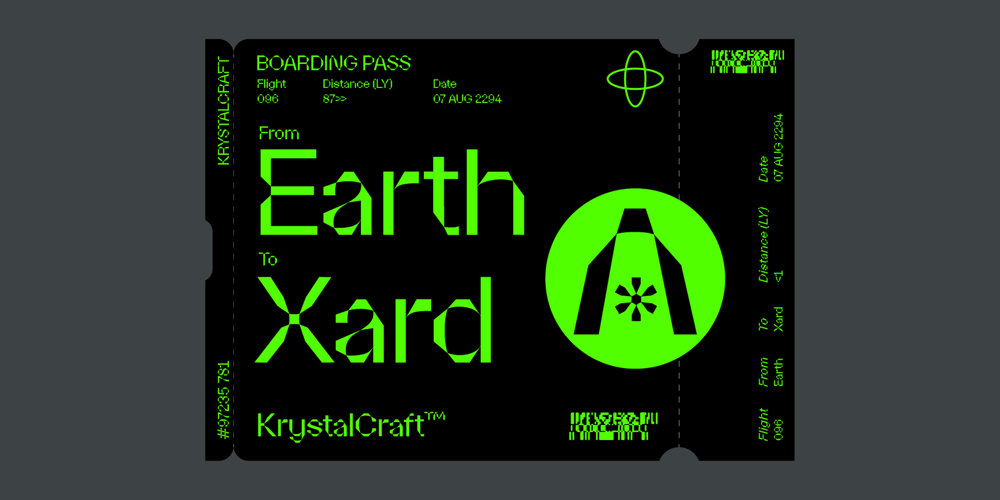
Xard Font Family was designed by Pande Sujana and published by Sryga. Xard contains 4 styles and family package options. Introducing Xard, a typeface that brings a cosmic flair to your words. Its captivating contours mirror the fractured elegance of crystal asteroids adrift in space, infusing your text with an otherworldly charm. With Xard, every letter becomes a celestial fragment, forming a captivating constellation of characters that will leave your readers stargazing in awe